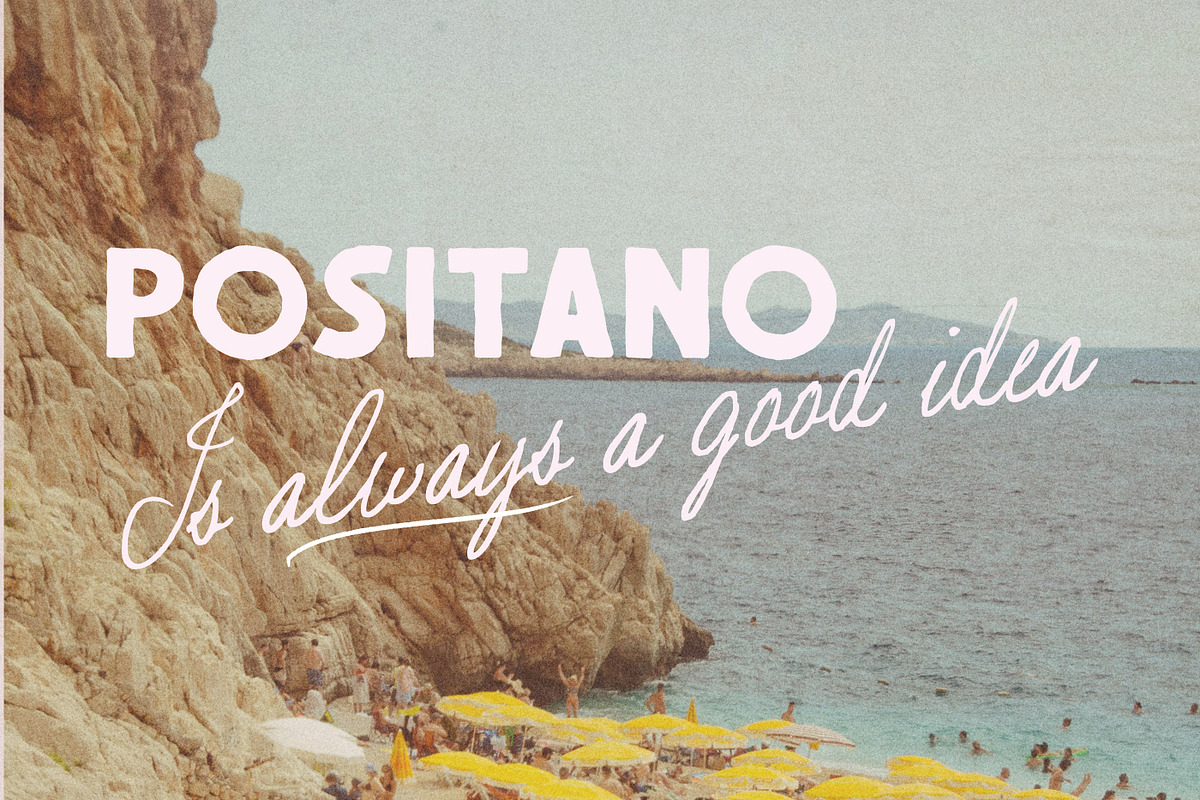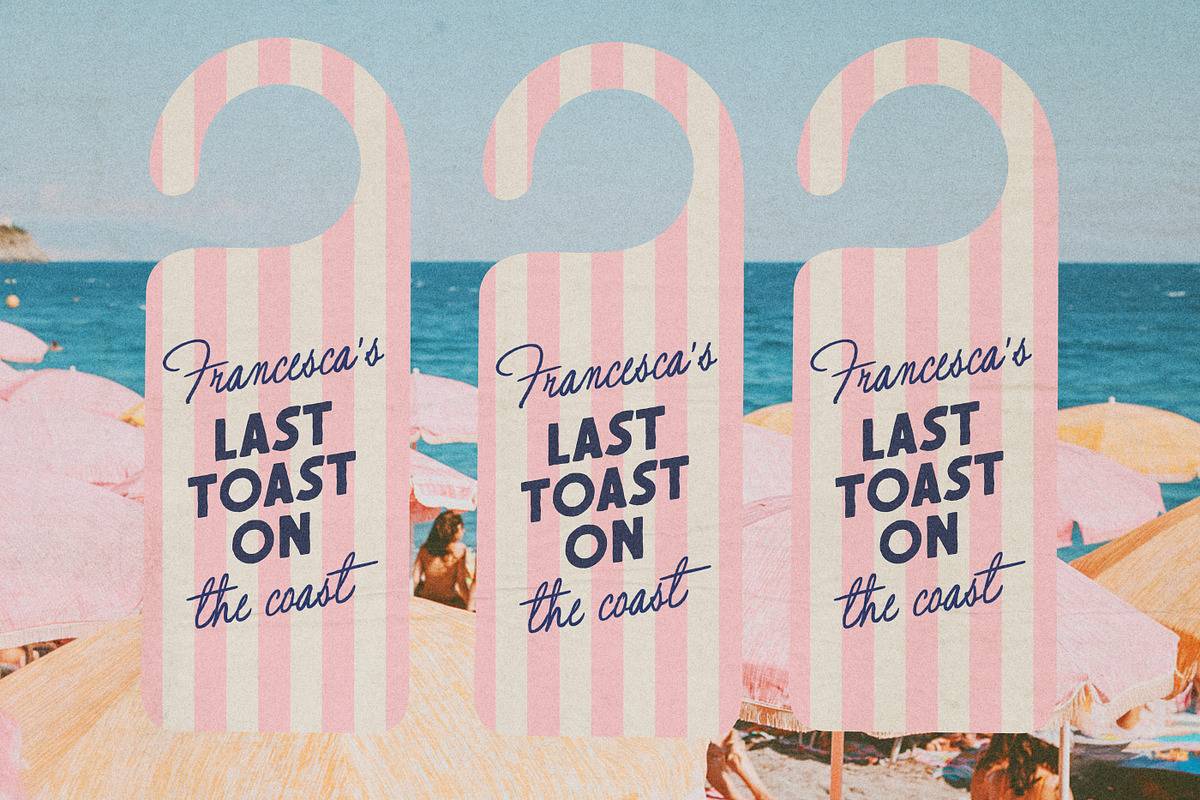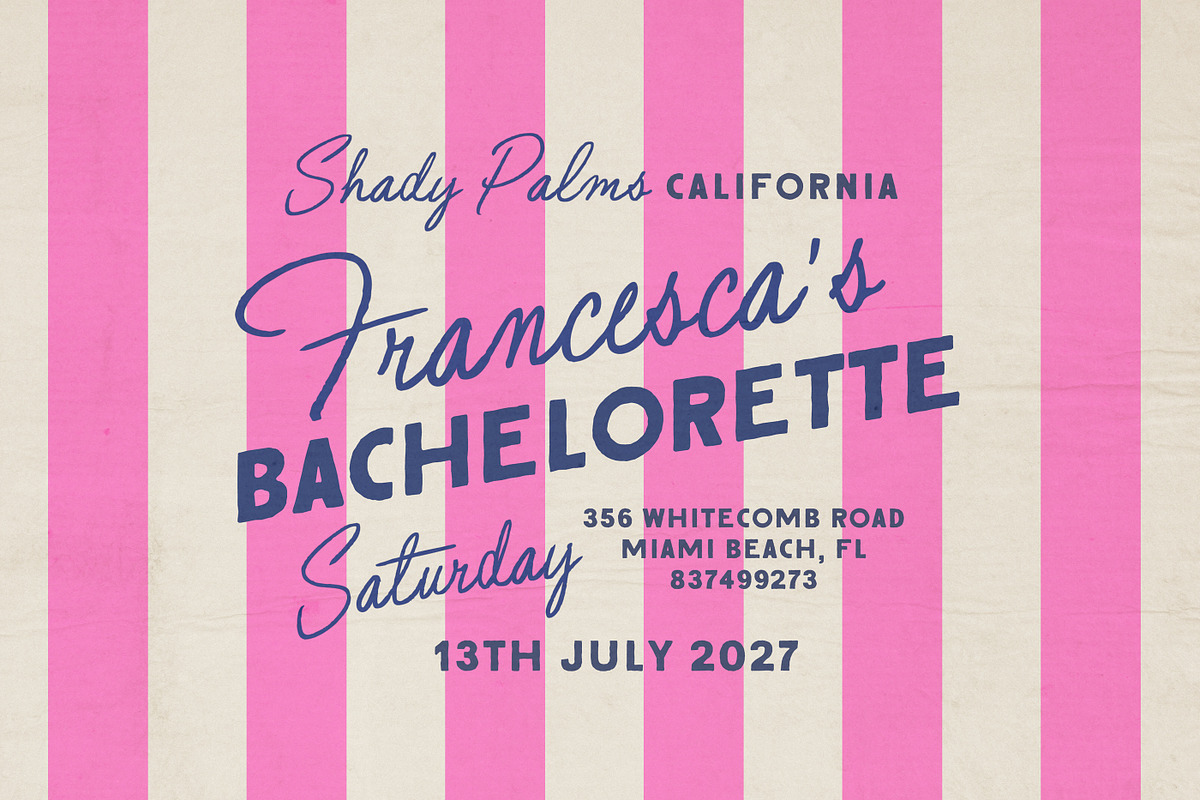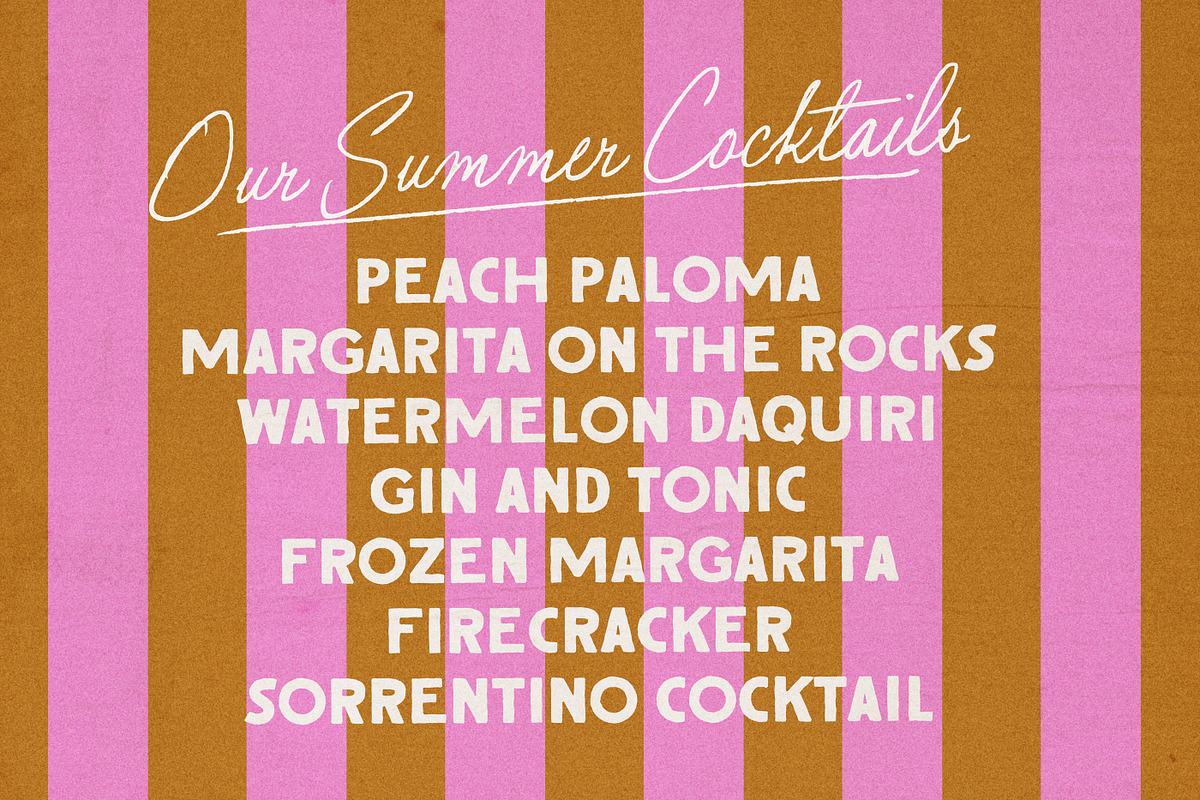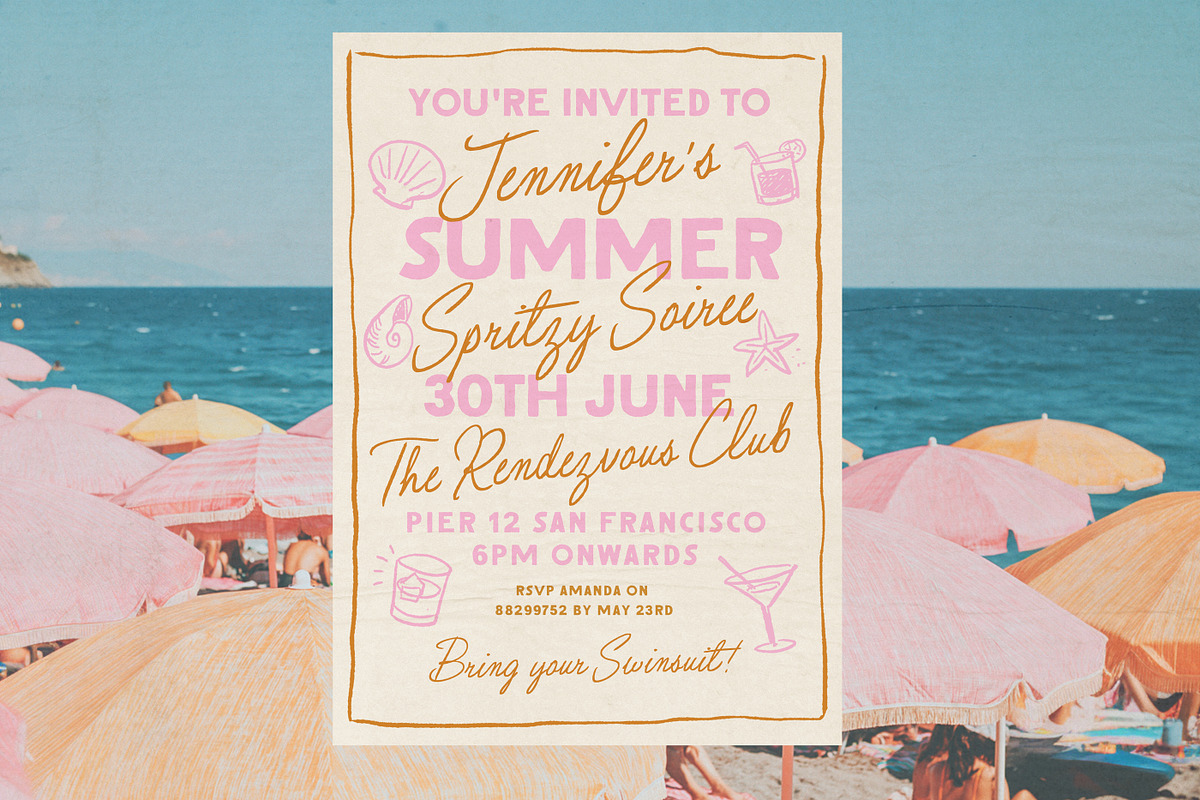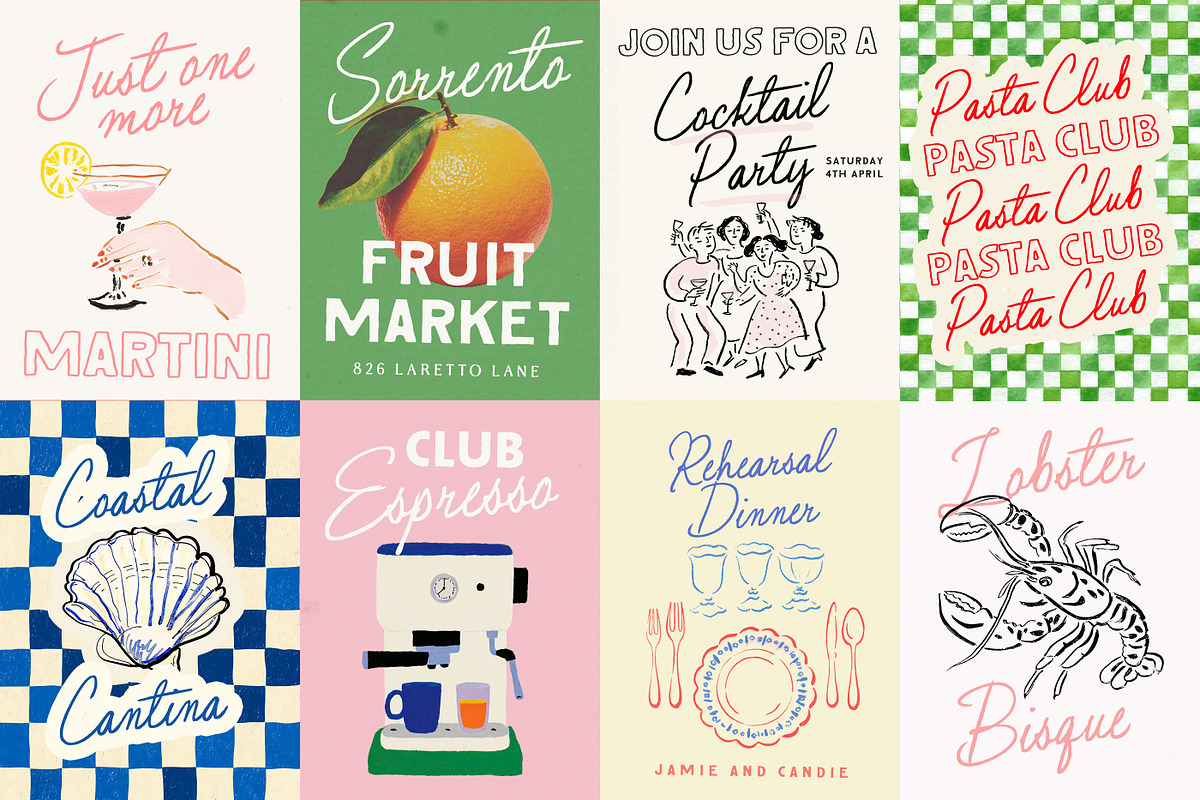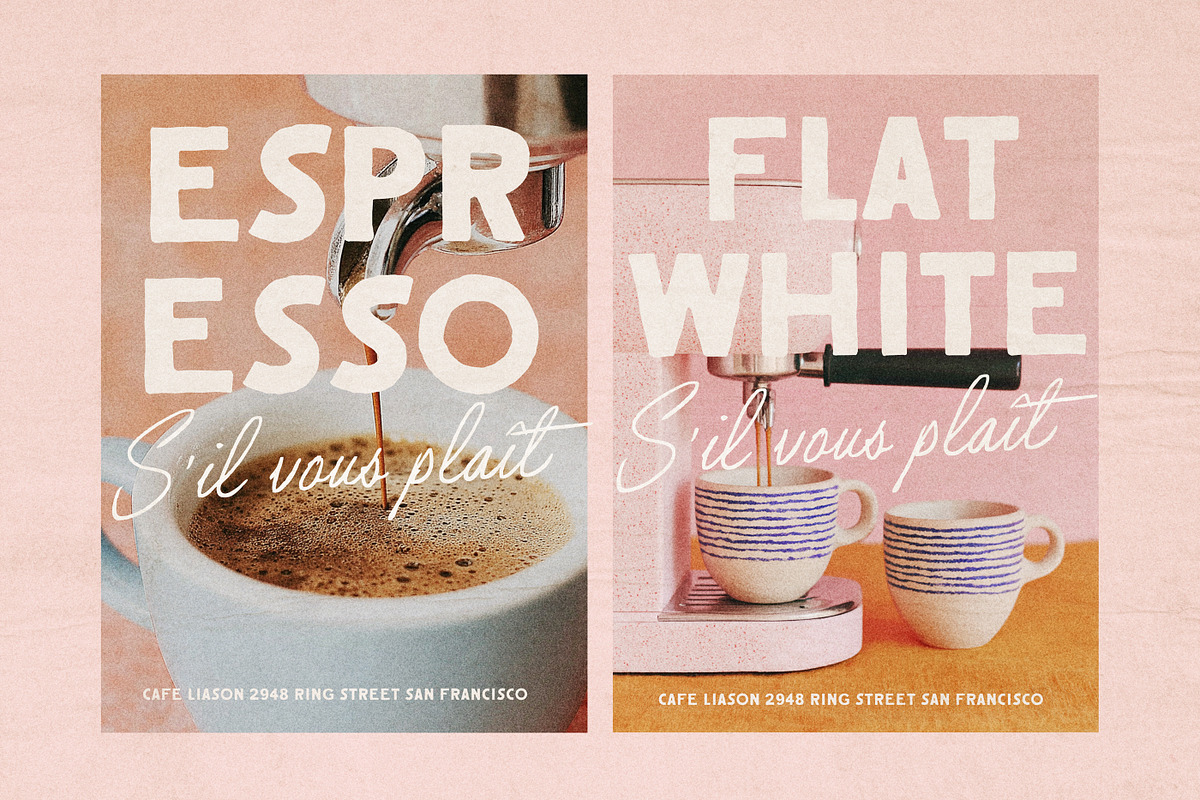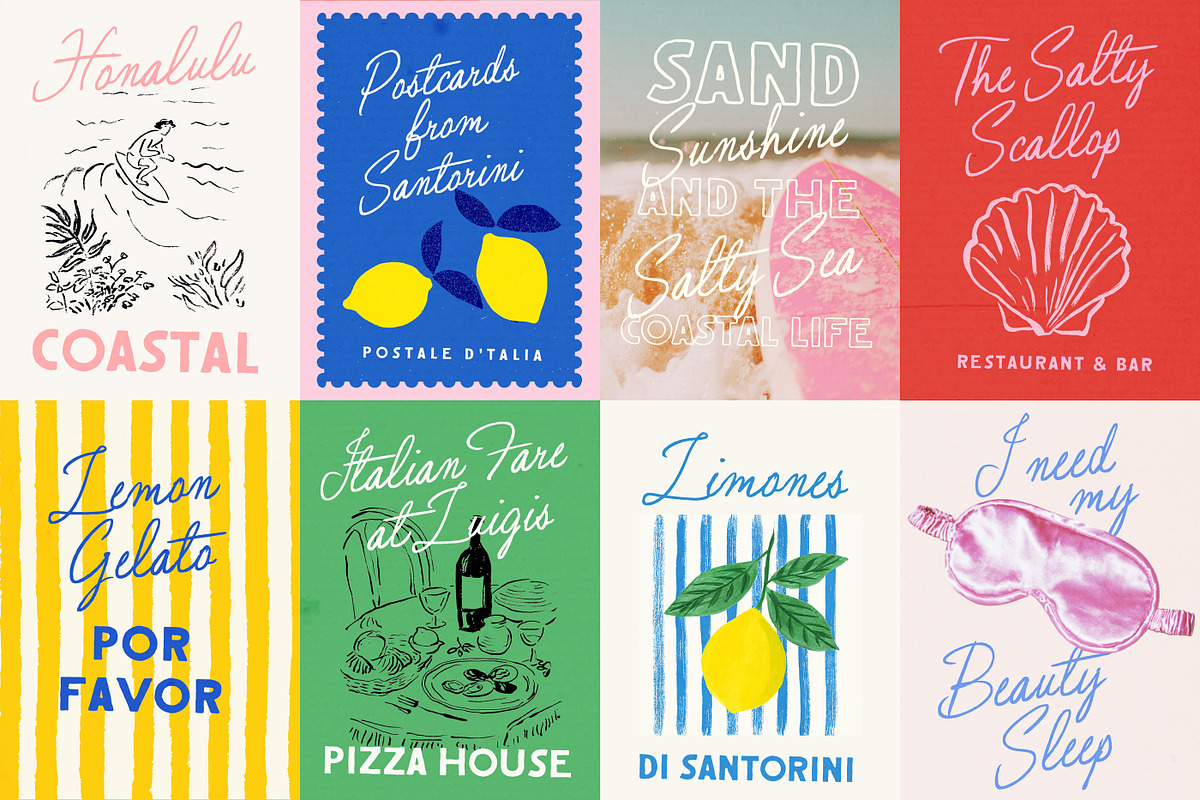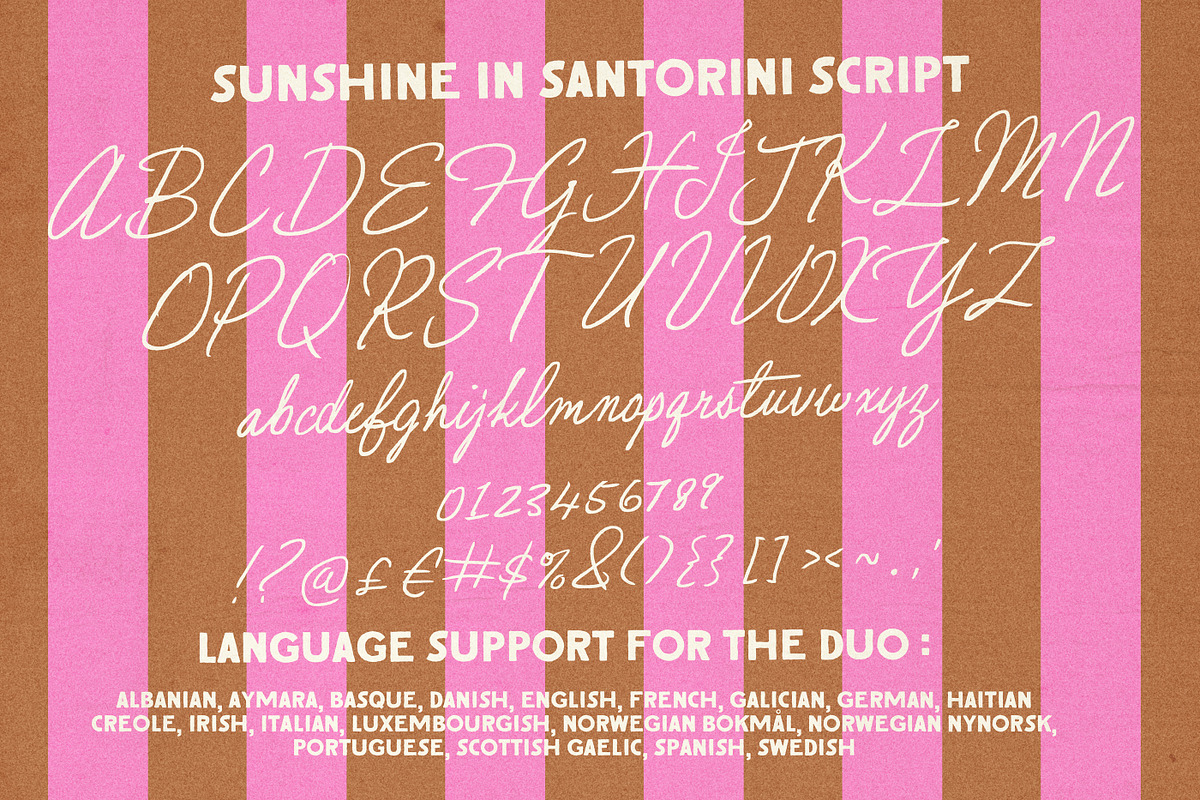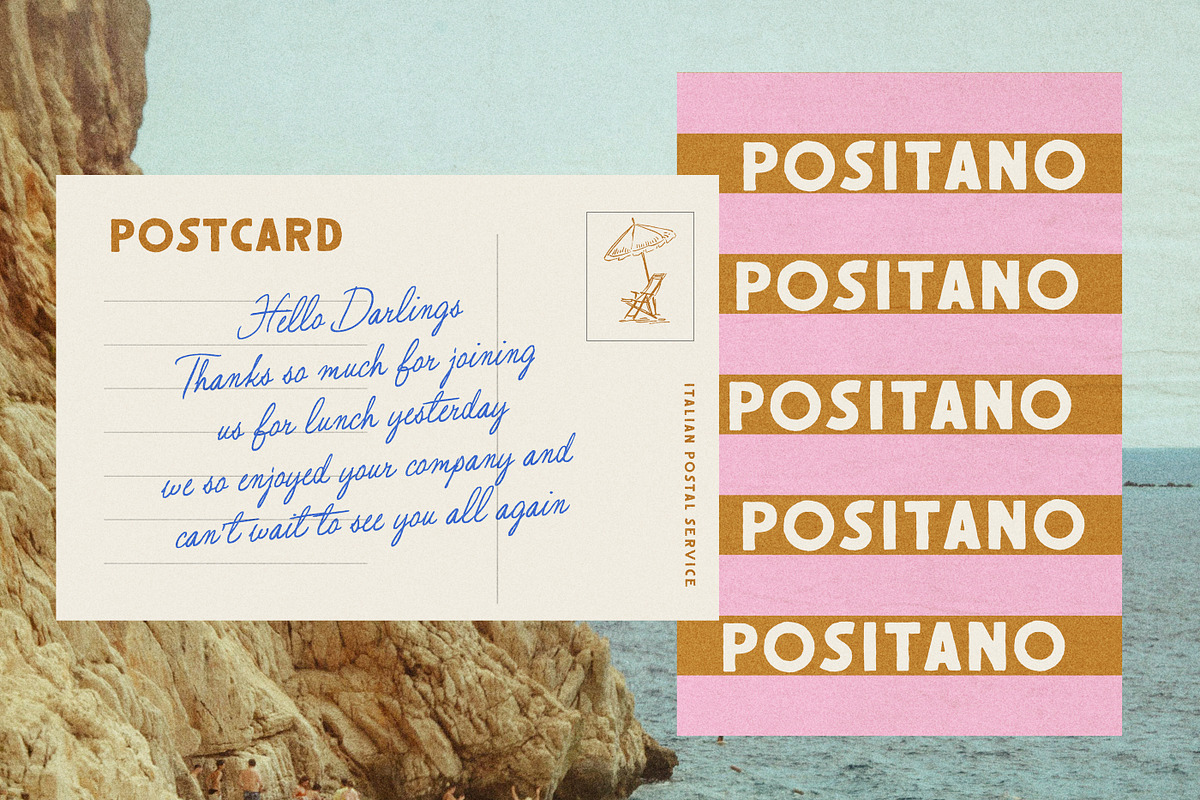
Santorini Sunshine
Say hello to Santorini Sunshine! Just in time for summer! - a fresh now font duo, thats built to invoke the pleasures of warmth and wanderlust!
A natural imperfect handwritten Script, that has a touch of nostalgic glamourous 50s styling , and to compliment it, a imperfect, rough-edged, inky sign-painted All-caps Sans - inspired by the same era of retro vintage signage :)
Bold yet suave, fresh yet nostalgic, a combo that can morph into a large range of uses :)
Perfect for Boutique Brands, Event stationery, Fresh Packaging, Summer Prints and Merch, Head-turning Social Media Graphics, Fun Greetings and so much more!
The Script comes in a Regular and Wider variant, and 2 slightly different slants for each.
The All-caps Sans Serif comes in a slightly lighter weight, as well as an outlined version of each.
Language Support :
Albanian, Aymara, Basque, Danish, English, French, Galician, German, Haitian Creole, Irish, Italian, Luxembourgish, Norwegian Bokmål, Norwegian Nynorsk, Portuguese, Scottish Gaelic, Spanish, Swedish